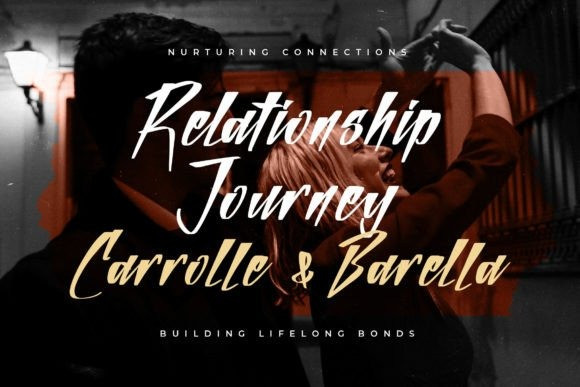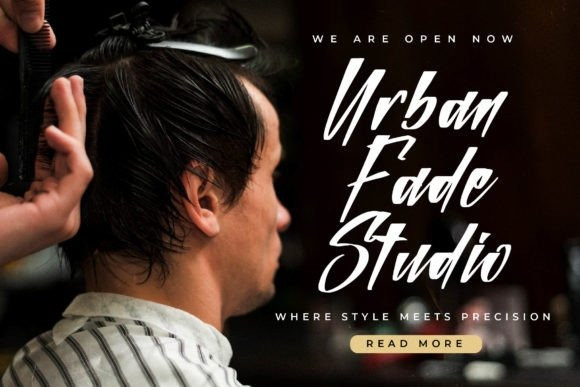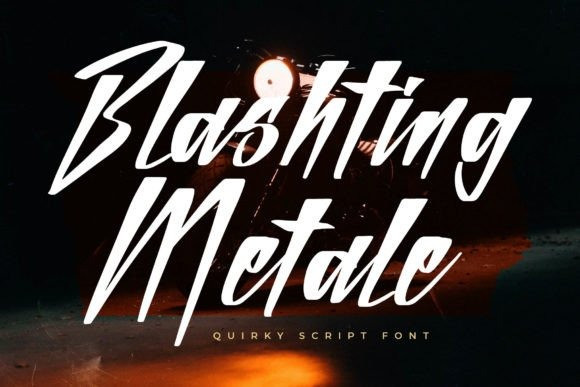
Blashting Metale Font
Blashting Metale Font is a quirky script font from Glorytype Studio, suitable for any project such as logos, branding projects, homeware designs, product packaging, mugs, quotes, posters, shopping bags, t-shirts, book covers, name card, invitation cards, greeting cards, label, photography, watermark, special events, and all your other lovely projects that need a beautiful script taste.